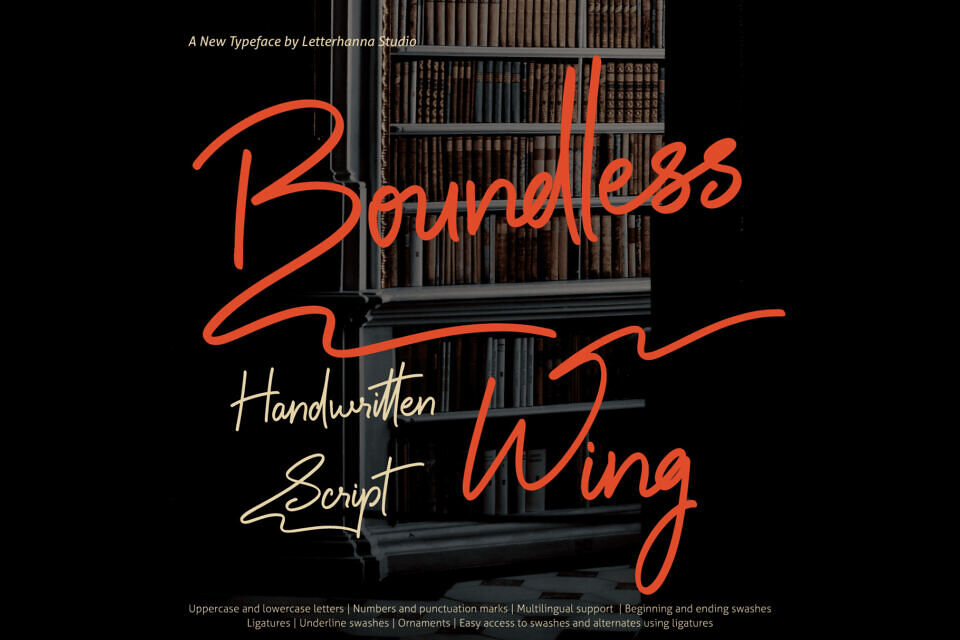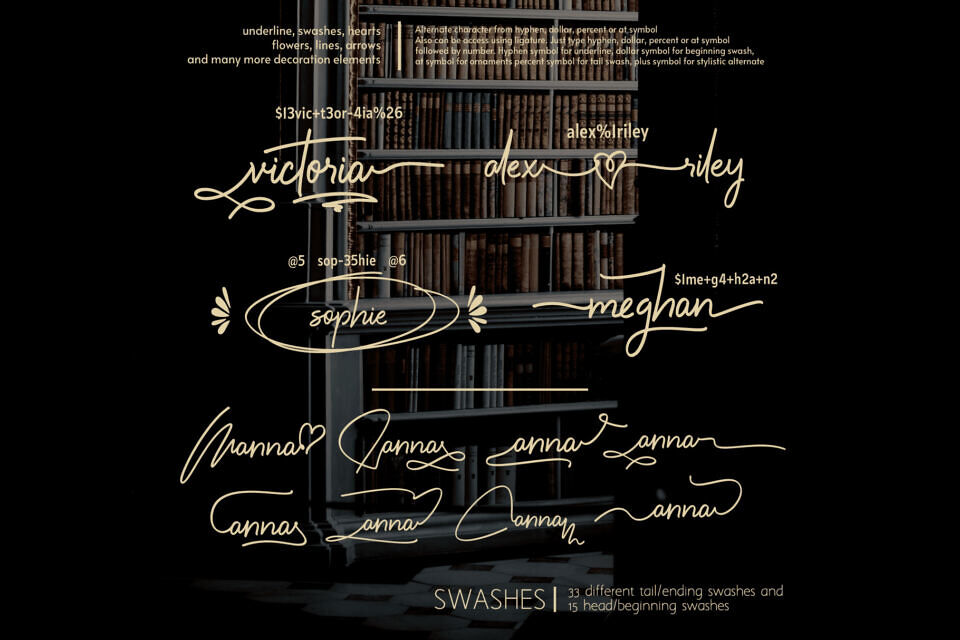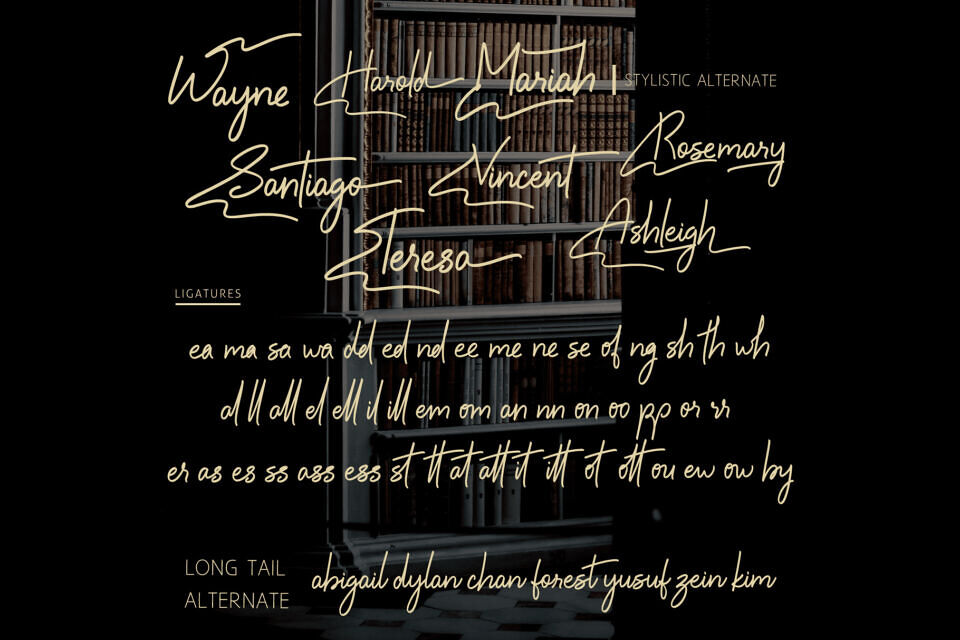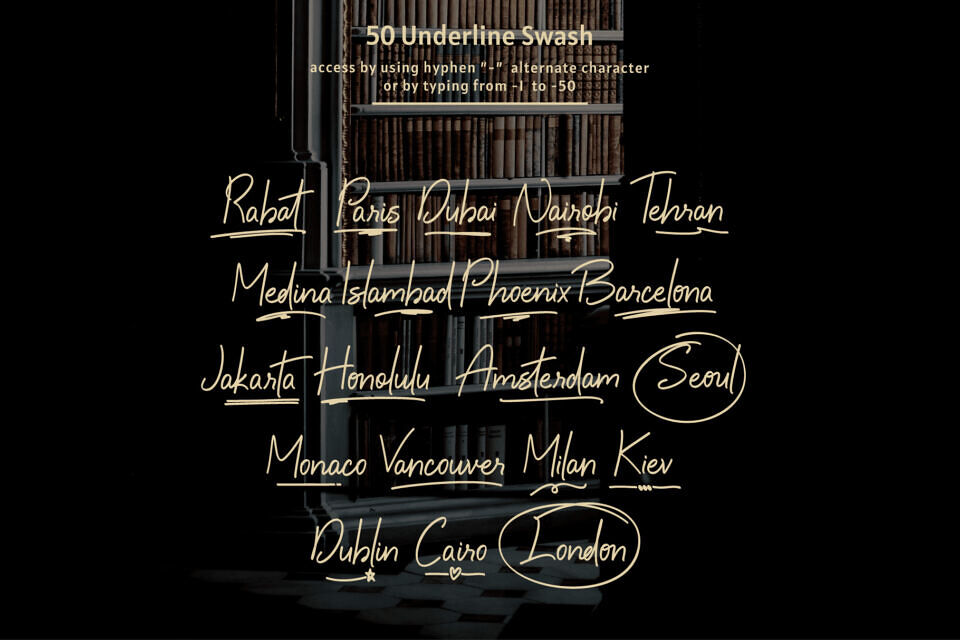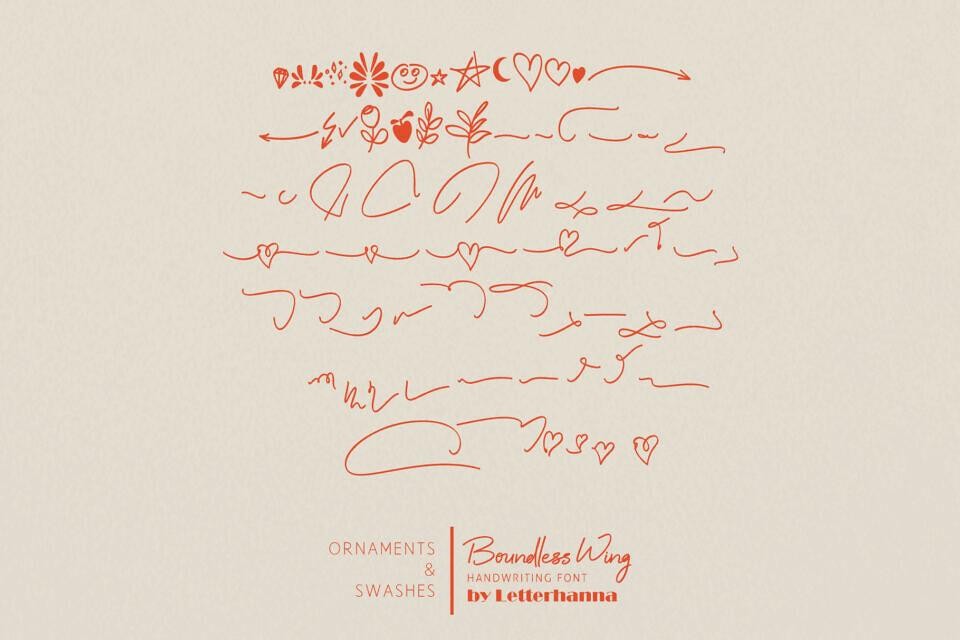
Boundless Wing Font
In a digital age, handwritten imperfections convey genuine emotion. Boundless Wing font embodies this raw energy. Created by Letterhanna Studio, it offers ligatures, swashes, and alternates for customized, striking text.
This script font balances handwritten charm with readability, making it perfect for bold headlines, social media, and editorials, allowing you to escape ordinary typography.